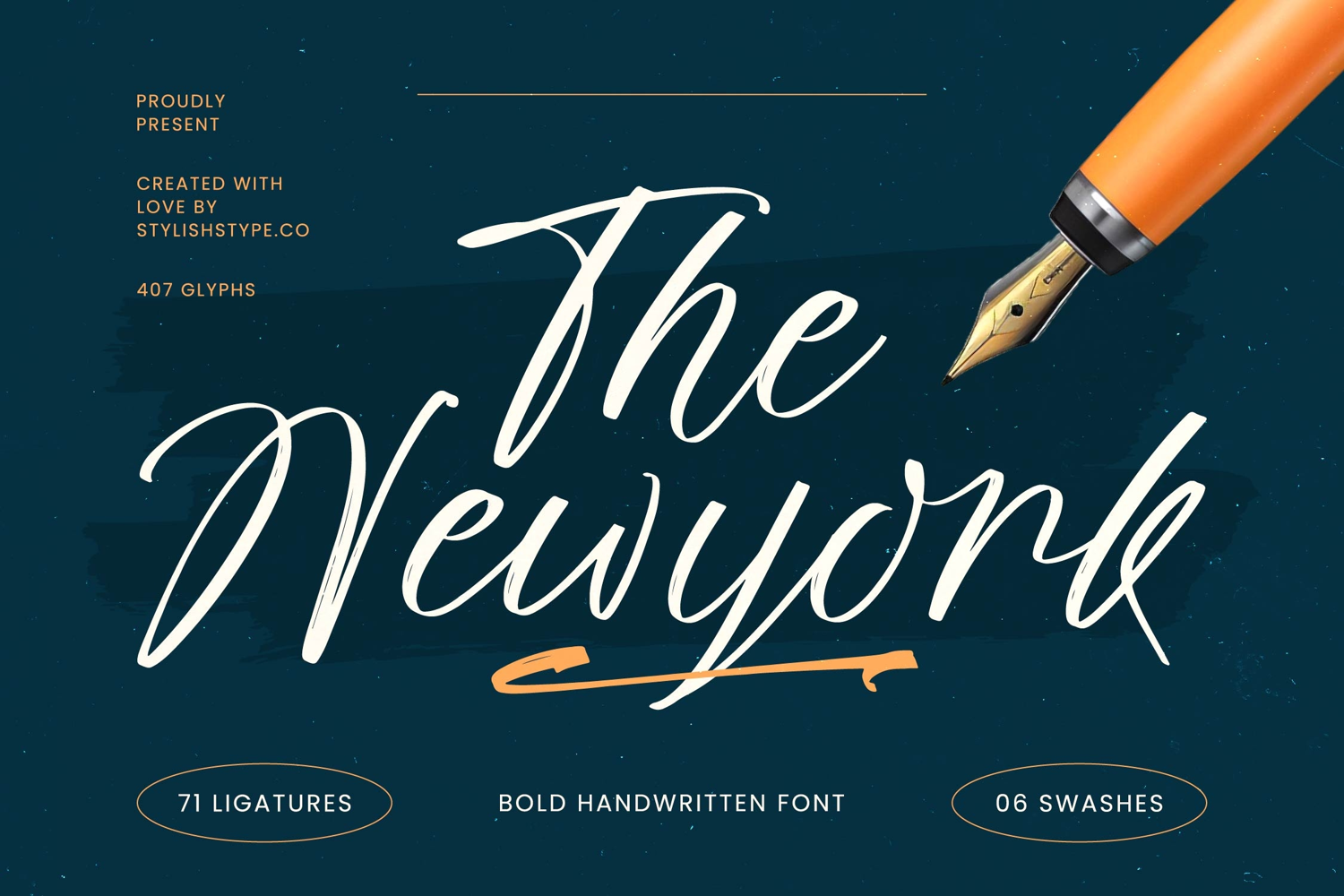
The Newyork - Bold Handwritten Font
The Newyork Italic
The Newyork
The Newyork - Bold Handwritten Font. This dynamic script typeface commands attention, featuring thick, expressive brush strokes that convey both energy and refined elegance. Its striking high-contrast between thick and thin lines ensures outstanding readability and visual impact, making it the definitive choice for titles, headers, and any project needing a spontaneous, yet polished, feel.